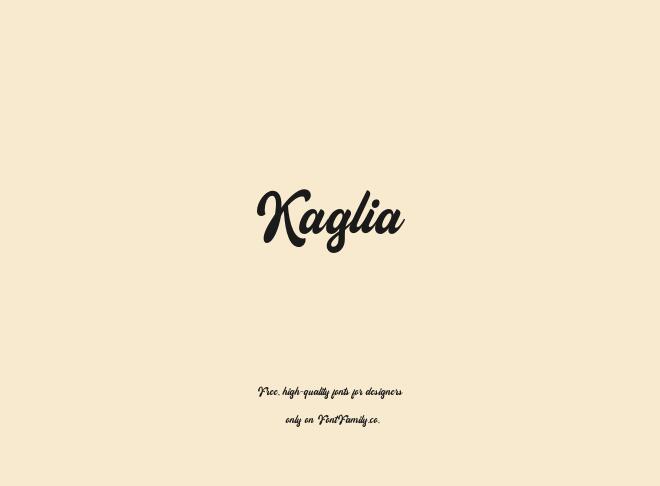
Kaglia Font
Kaglia Font is a modern, elegant, and handwritten script typeface that brings a unique charm to any design project. Its flowing, smooth curves and edgy character strokes offer a perfect blend of sophistication and creativity. This font is highly versatile, making it an ideal choice for branding, wedding invitations, book covers, stationery, marketing, magazines, and logos. Kaglia Font stands out from the crowd with its unique style, reminiscent of classic handwritten scripts but with a contemporary twist. Its wide range of glyphs and ligatures provides endless design possibilities. The Kaglia Font is a free download, perfect for designers seeking to infuse their designs with elegance and modernity.